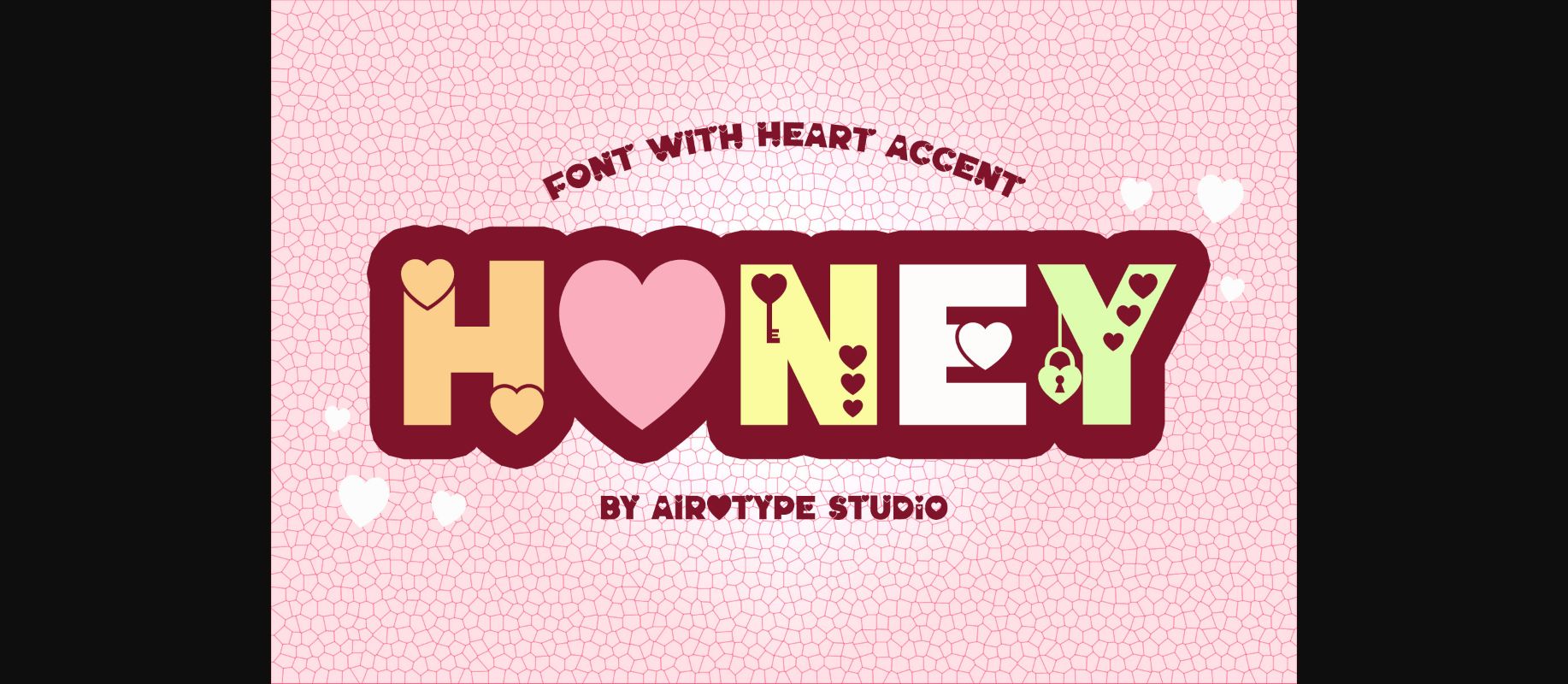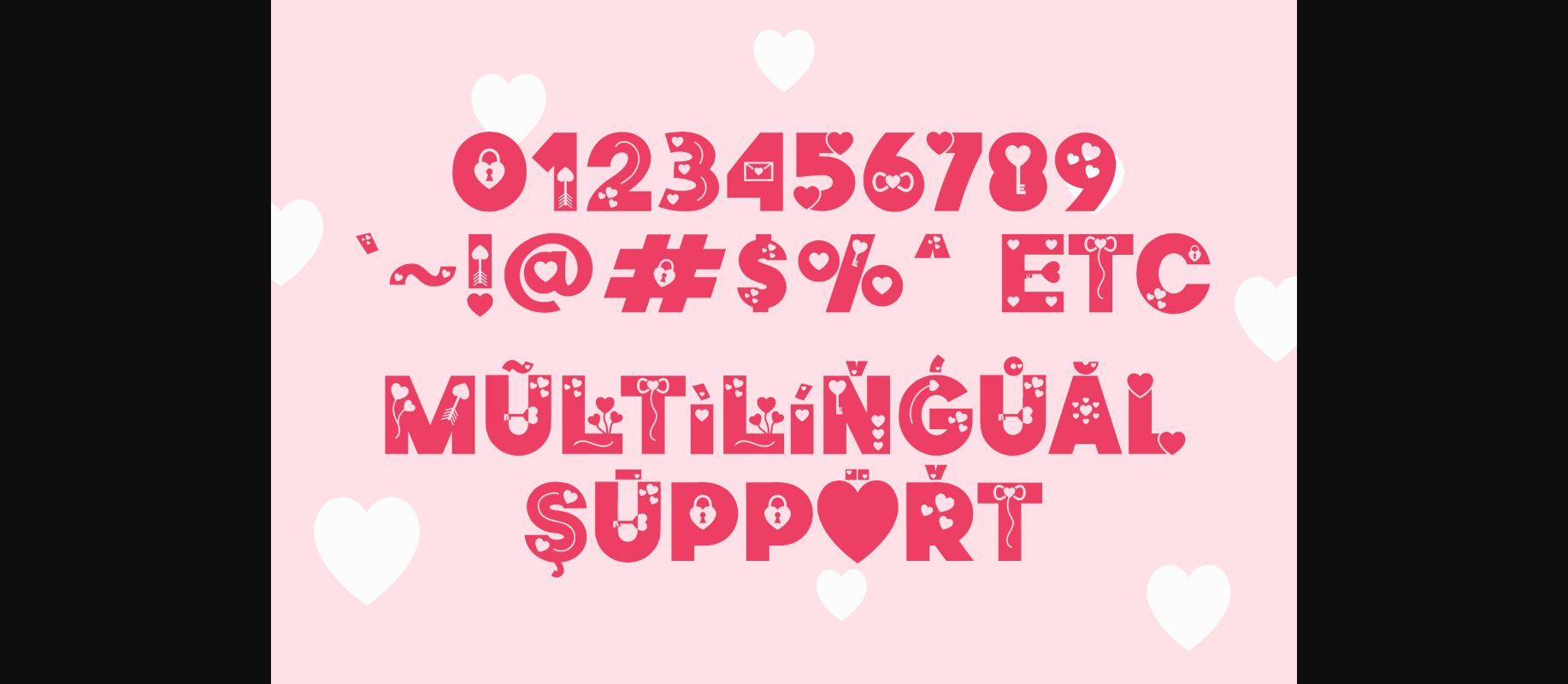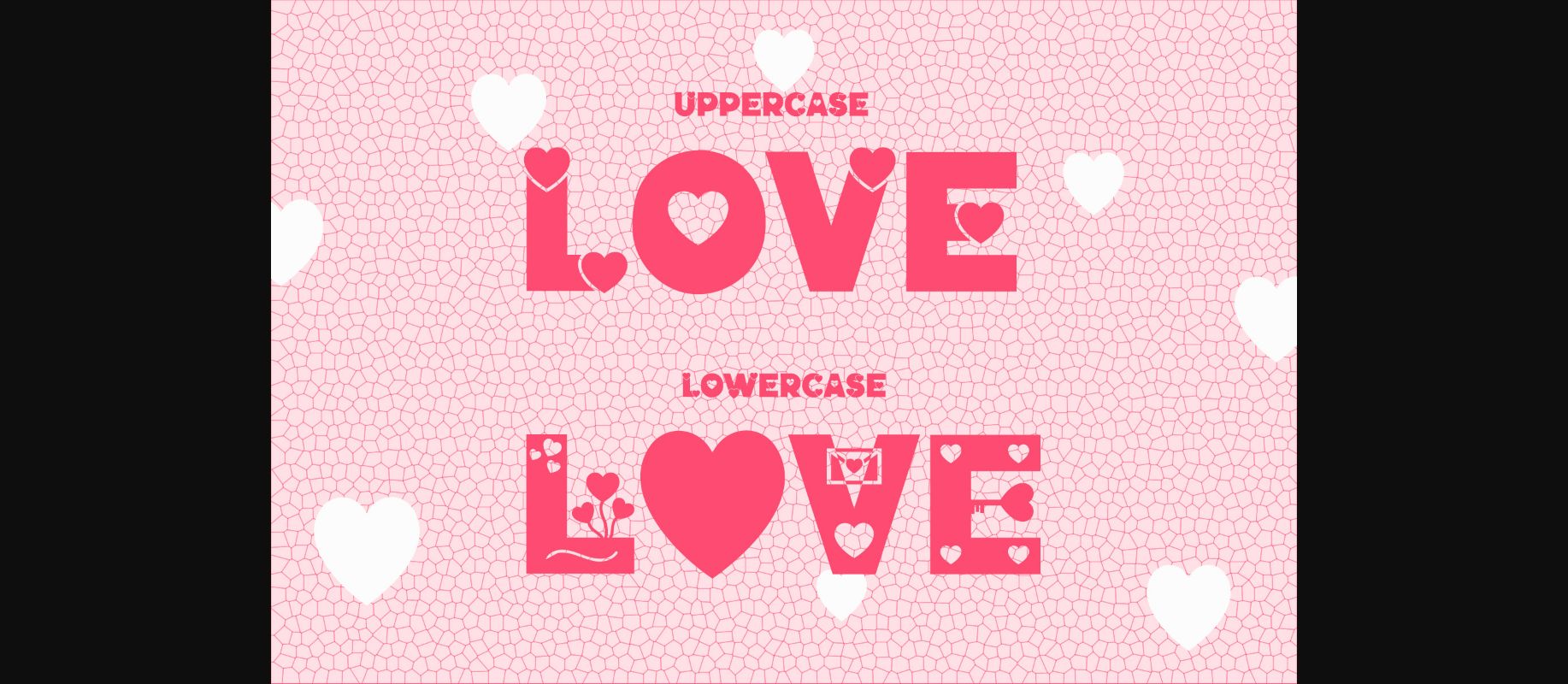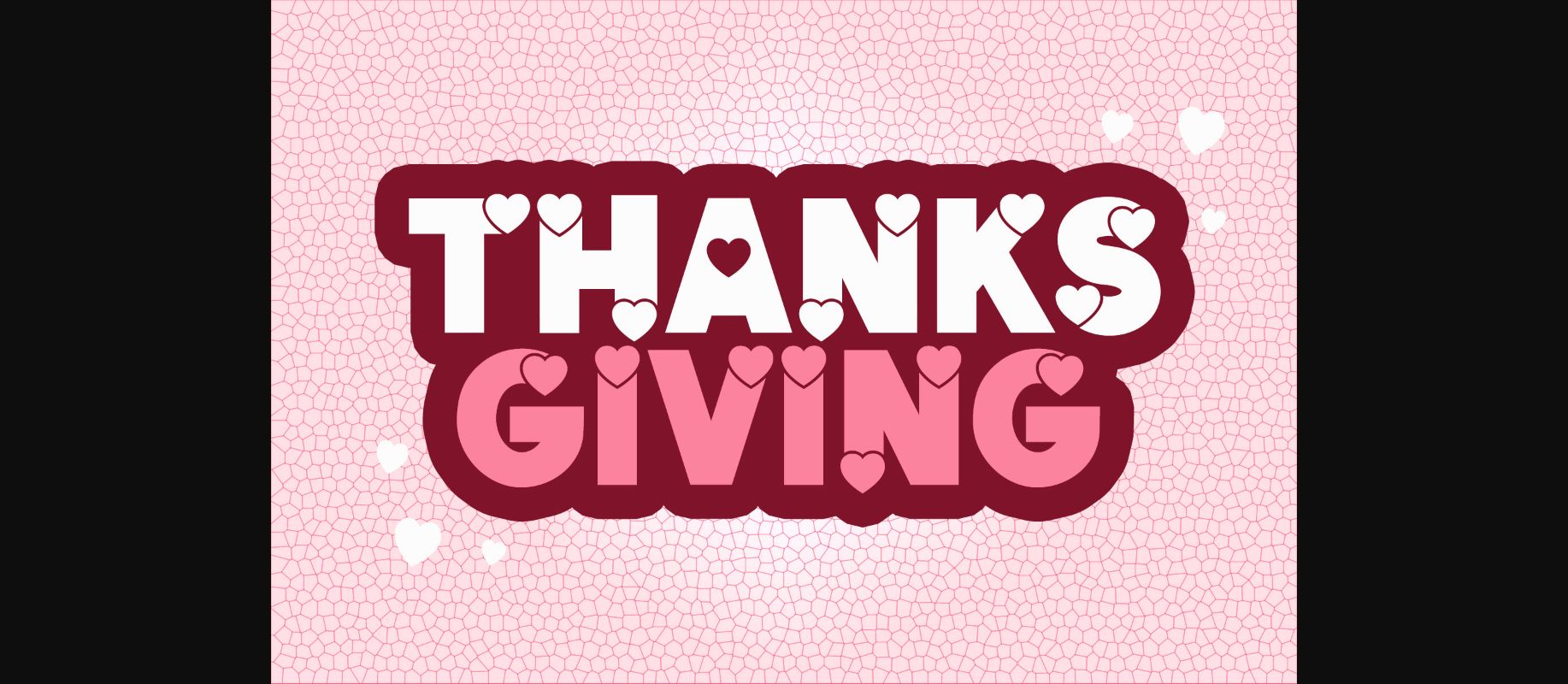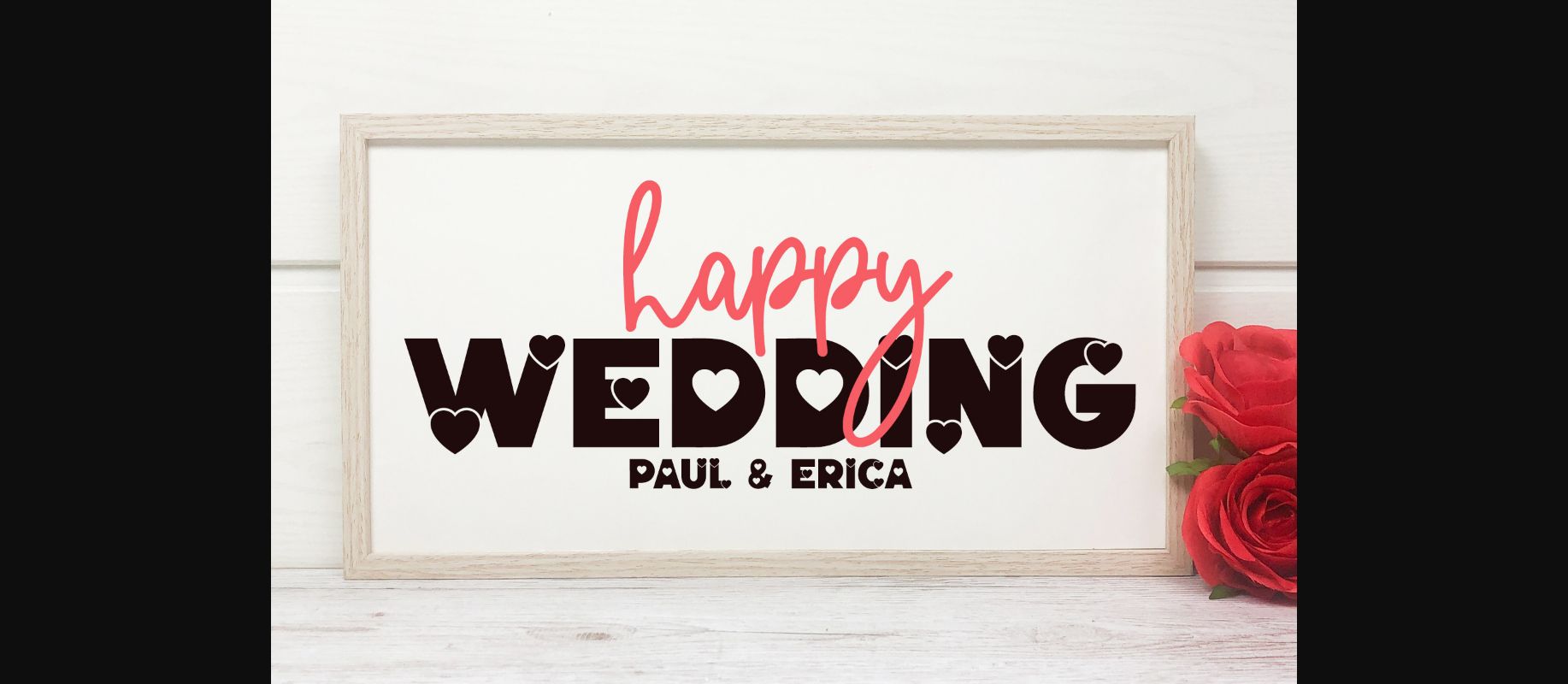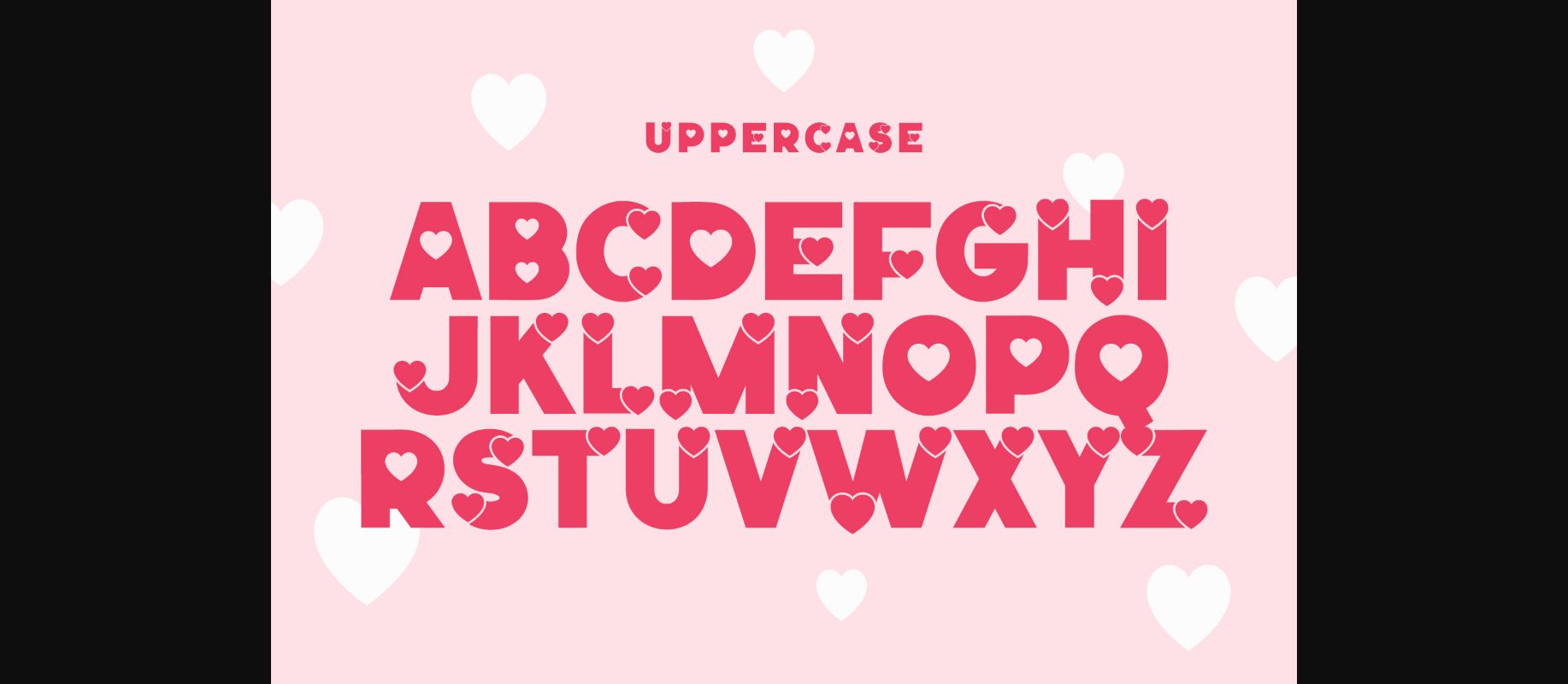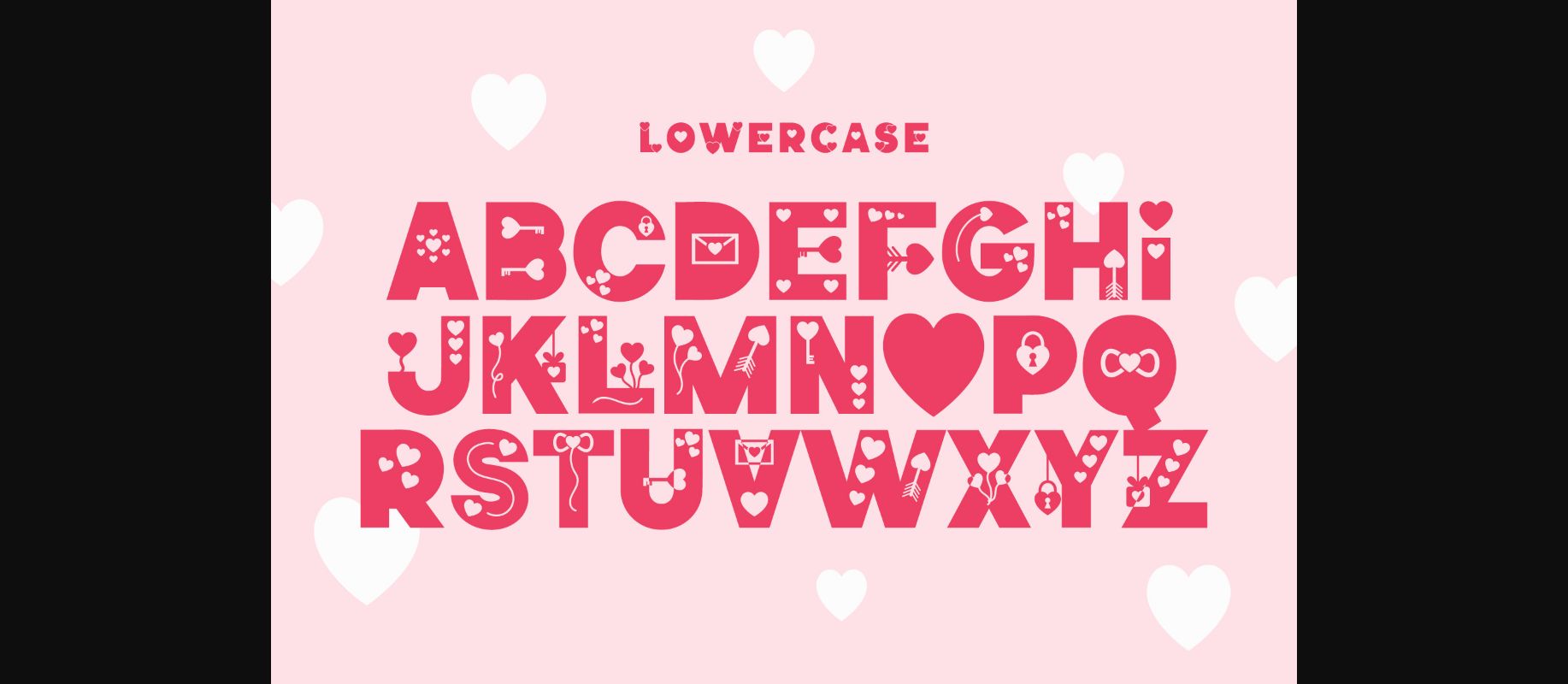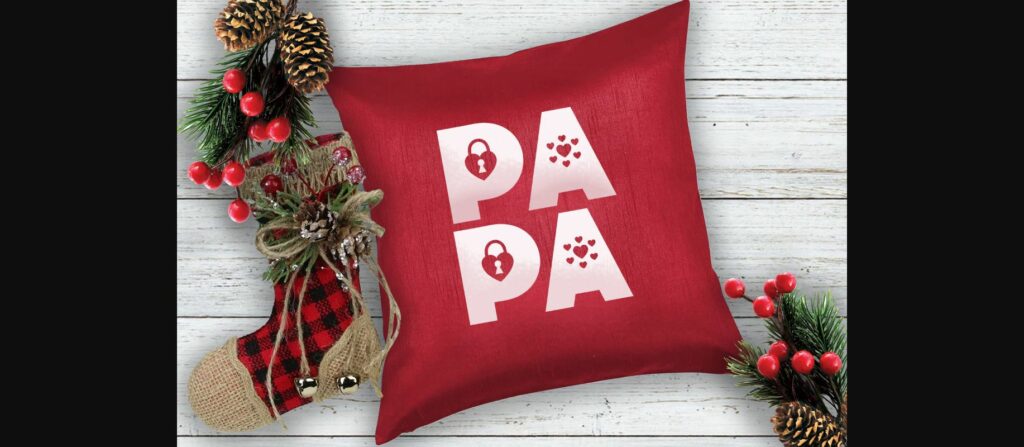
Honey is a bold decorative font with heart accents. This is a lovely font for any design that needs romantic vibes, such as Valentine’s Day, weddings, and many others.